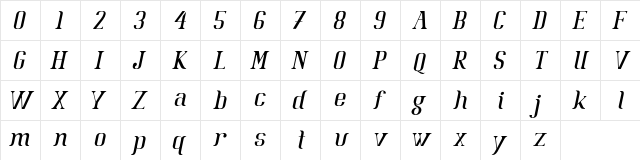
Batavia Glamore NORMAL ITALIC Italic Font Preview
Batavia Glamore NORMAL ITALIC Italic
Batavia Glamore NORMAL ITALIC Italic Font Details
| Foundry | Afredo.fk |
| Designer | Zulfikar Ali |
Design Context for Batavia Glamore NORMAL ITALIC Typeface
Batavia Glamore NORMAL ITALIC takes a measured approach to typography — its balanced proportions and neutral character make it a reliable workhorse for both digital and print work. The slanted form adds forward momentum and visual energy.
Pro Tip: Use Batavia Glamore NORMAL ITALIC for emphasis, pull quotes, and subheadings where its slanted energy can add rhythm to the layout.